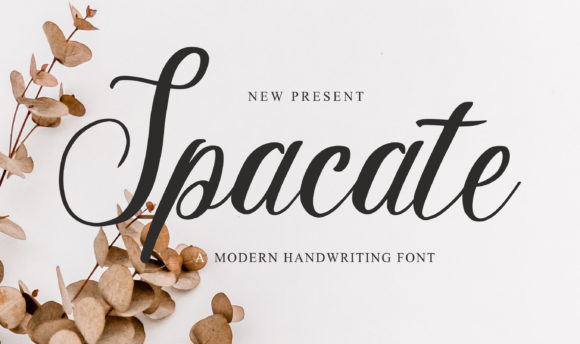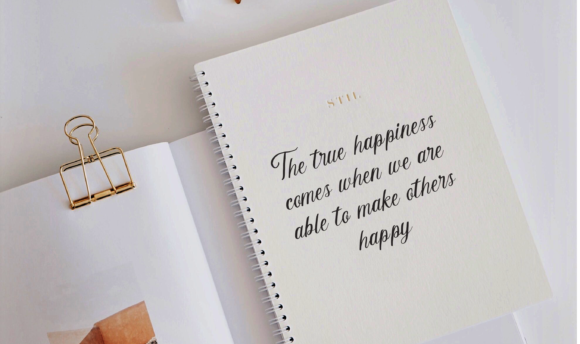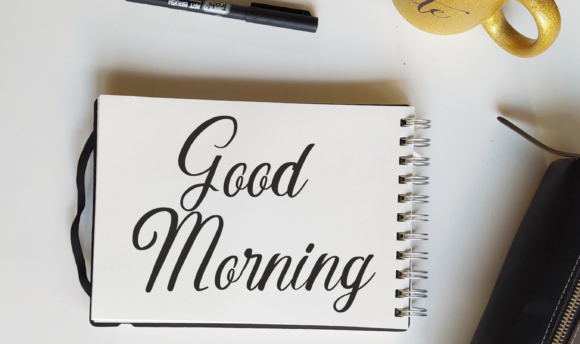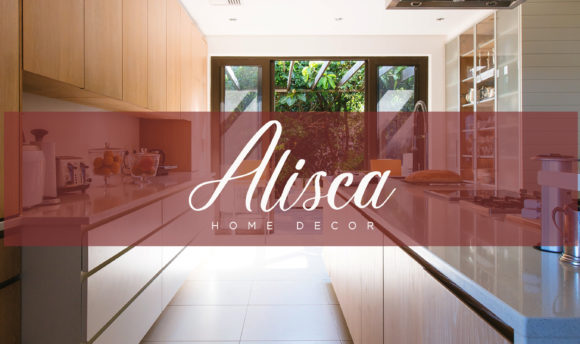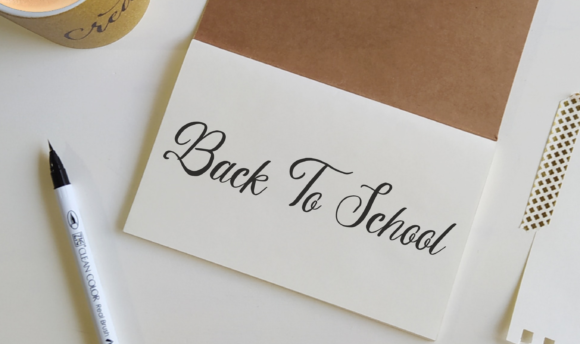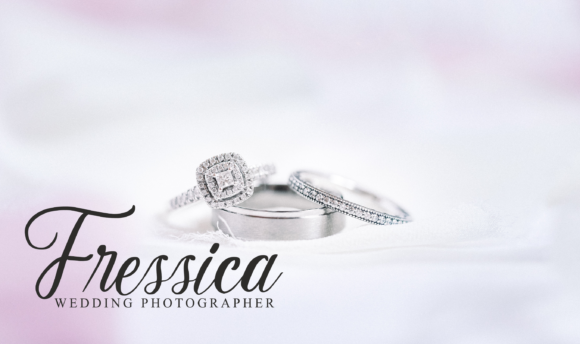
Spacate Font
About Spacate Font
Spacate feels equally charming and elegant. It looks stunning on wedding invitations, thank you cards, quotes, greeting cards, logos, business cards and every other design which needs a handwritten touch.